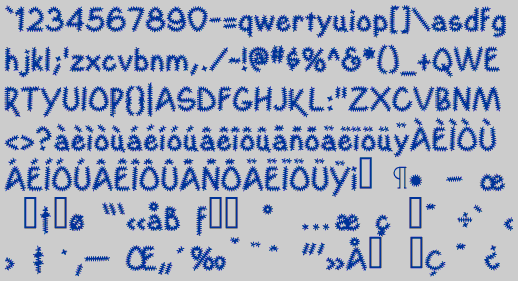
A number of the odder fonts on the No-Hype Type CD were created by distorting my more standard fonts with the font distortion program Font-O-Matic. The wave effect in Font-O-Matic gave interesting results on several of the typefaces I fed it. I found the results I liked best were those with a wave that gave lots of bumps and almost met in the middle of the letter. Some of the results looked pretty good directly from Font-O-Matic, but others required a considerable amount of hand tuning to look respectable.
YahoschWormy places a tight wave pattern on Yahosch, a bold, informal san-serif font. It is one of the most regular of the wave-patterned fonts.